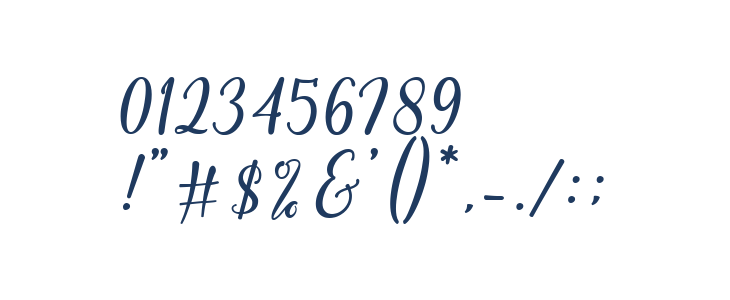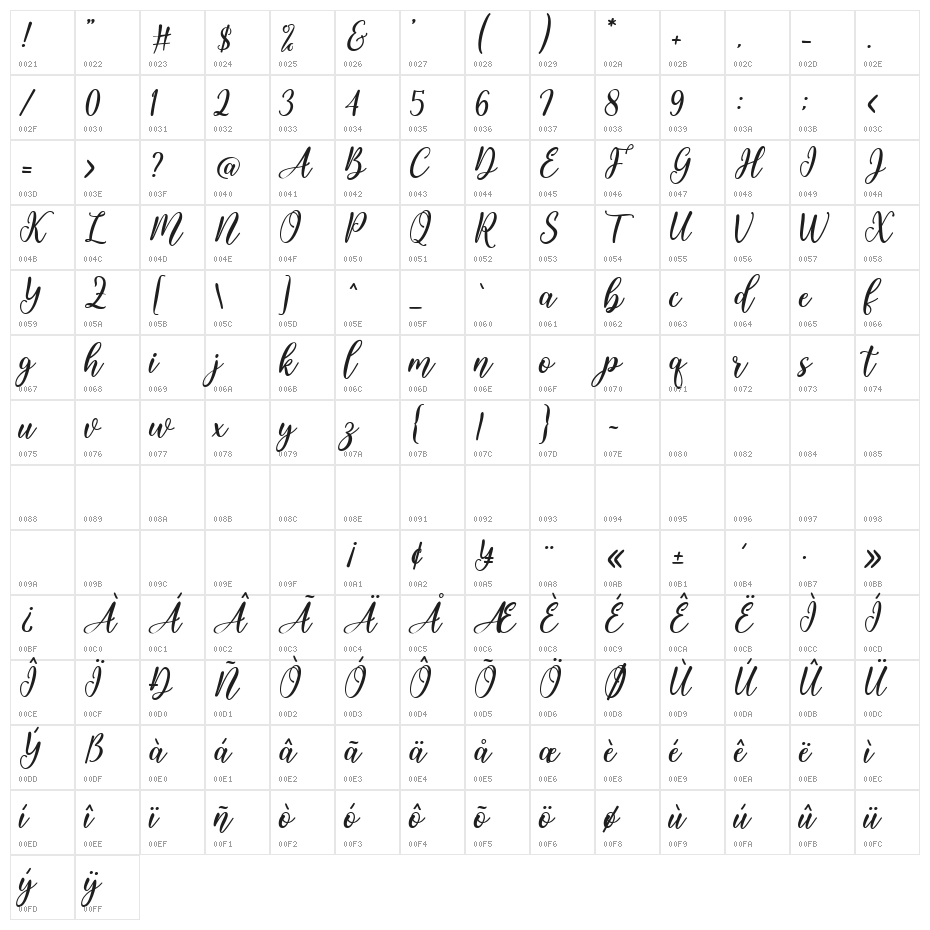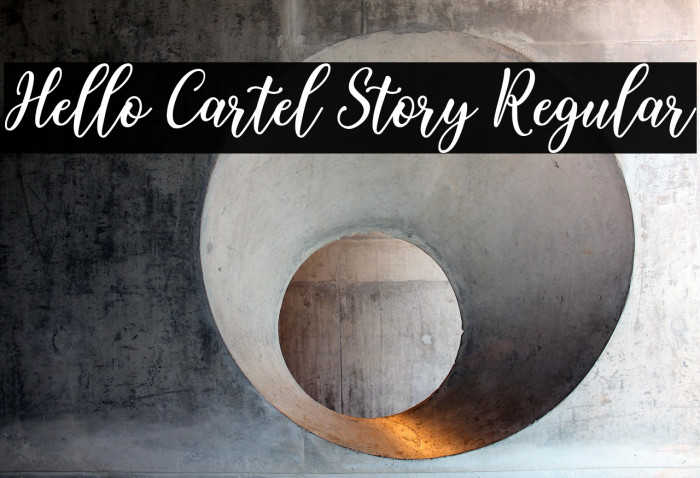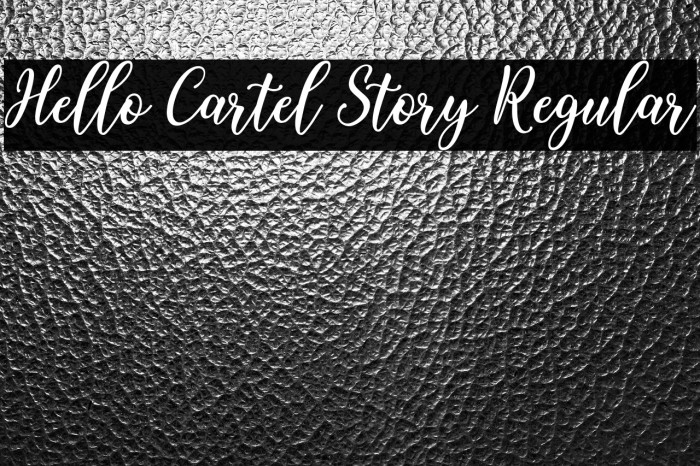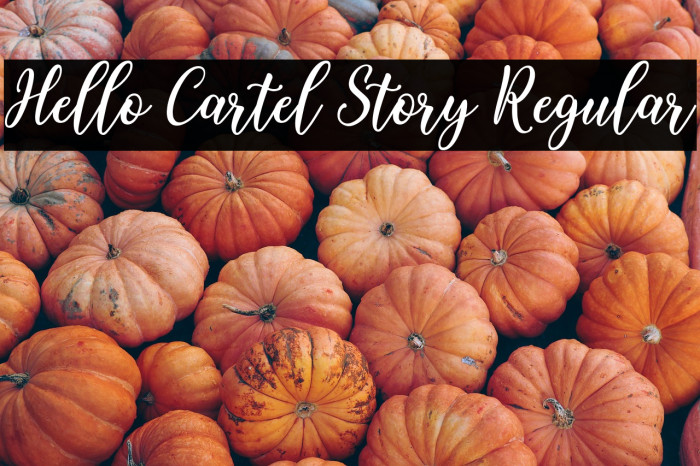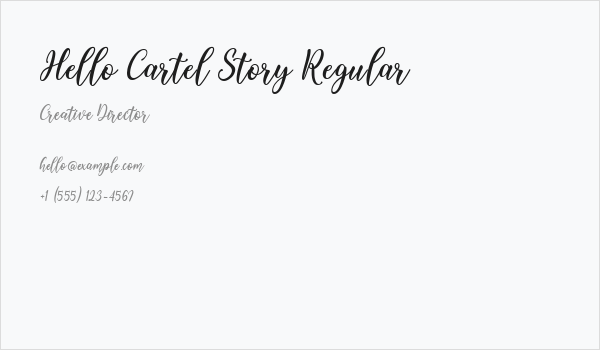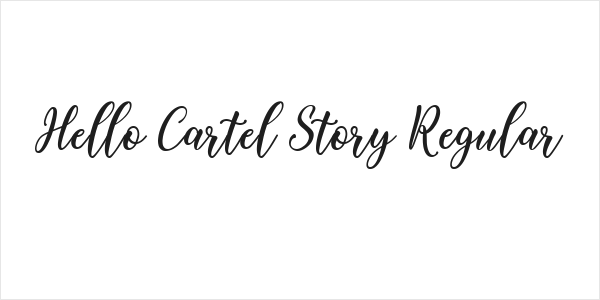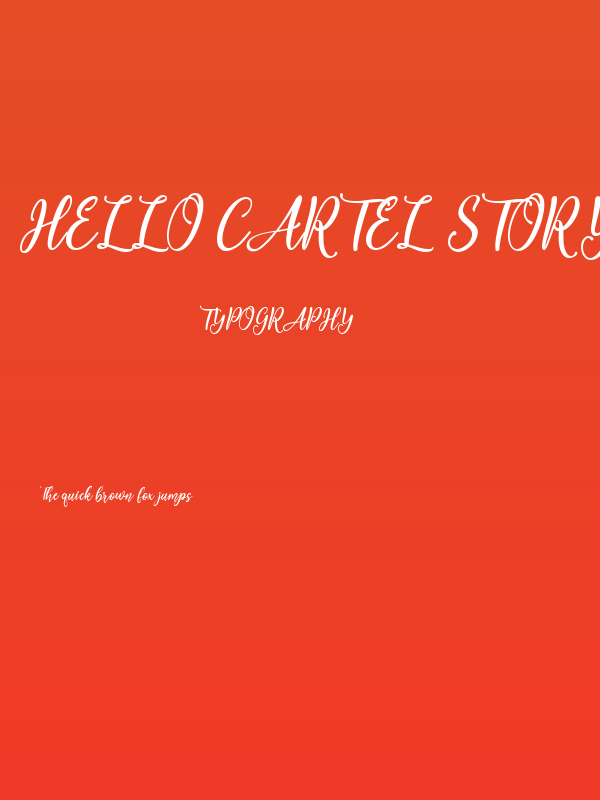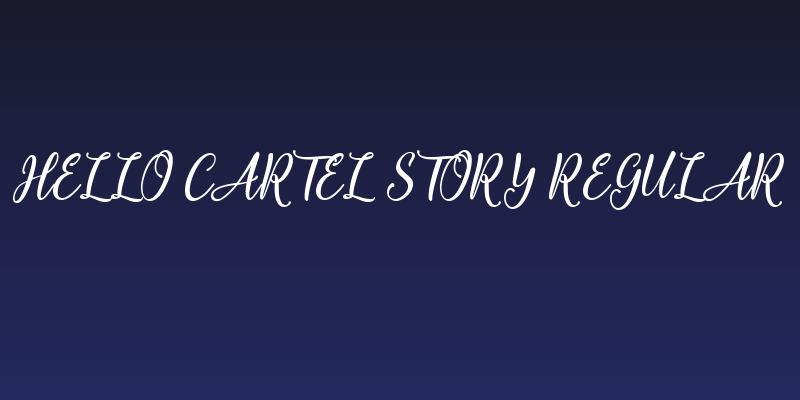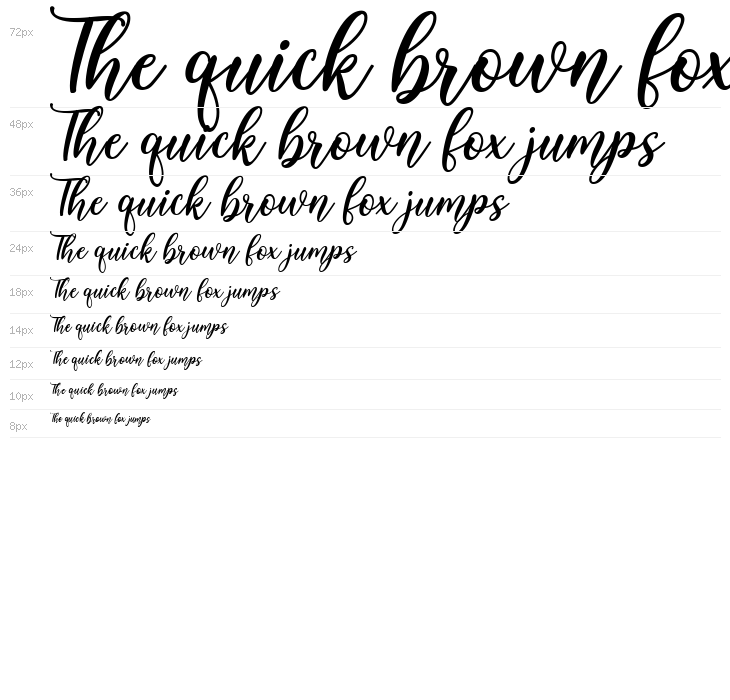
Hello Cartel Story Regular Font
Hello Cartel Story Regular Description
This font features a flowing, cursive style with elegant loops and swashes, giving it a handwritten appearance. The characters are connected, creating a seamless and fluid look. The uppercase letters are slightly more ornate, while the lowercase letters maintain a consistent flow. The numbers and special characters align with the overall script style, adding to its cohesive design. This font exudes a sense of sophistication and charm, making it suitable for creative and decorative applications.